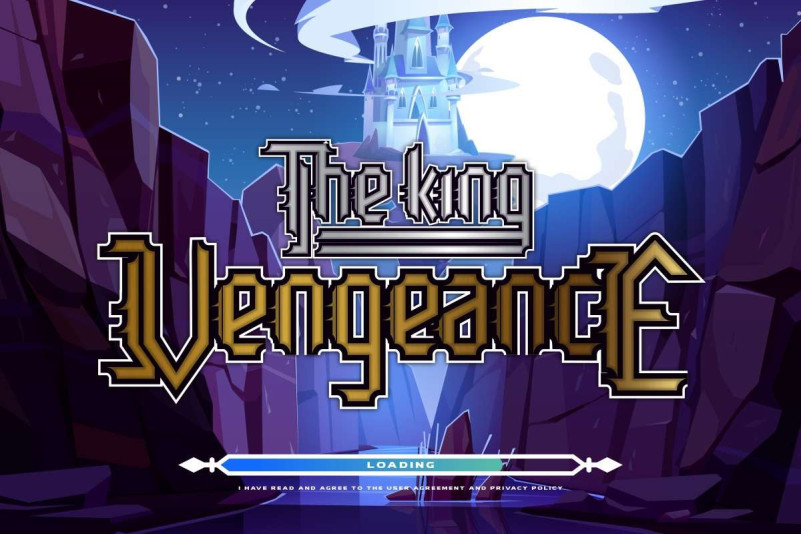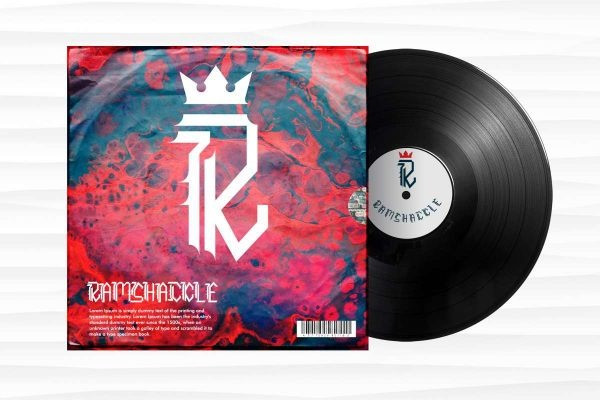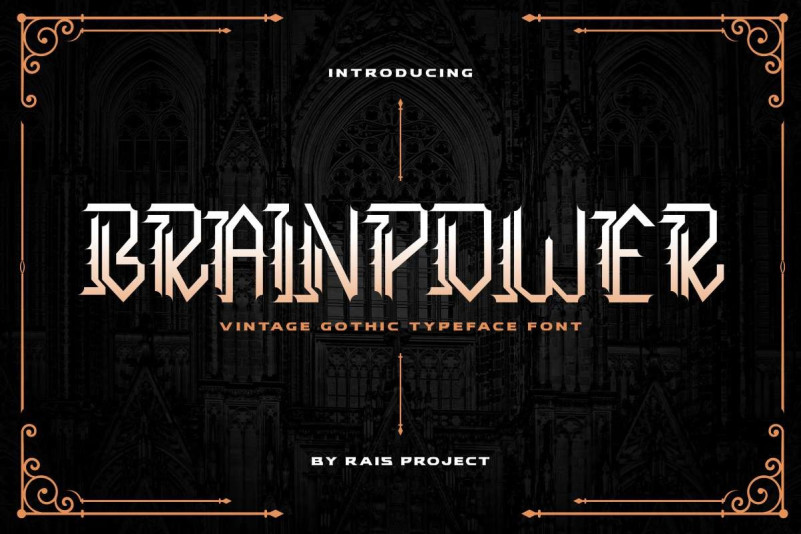
Brainpower Font
Brainpower Font is a blackletter vintage display font family, designed by Rais Project. The font has exclusive style that great for mysterious, casual, Beauty, Wedding, horror, Music, etc
The font was handcrafted for any your special projects including : headlines, promotion, events, branding, advertising, magazine, signage, invitation, stationery, social media posts, label, or and any projects that need unique strong style. The industries for this font is Games, Magazine, Music, Fashion etc. Brainpower Font includes full set of gorgeous letters ,numerals etc